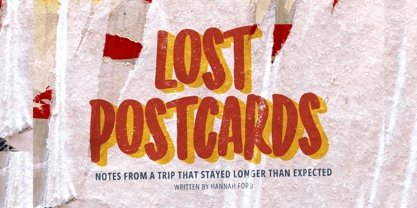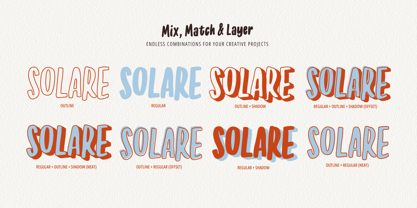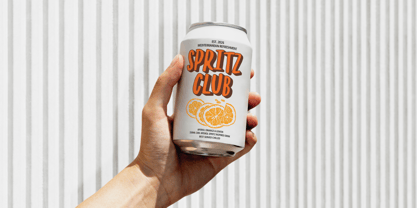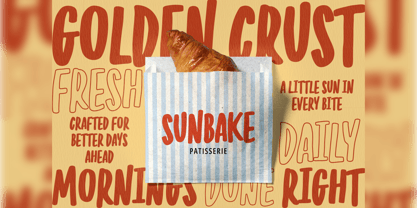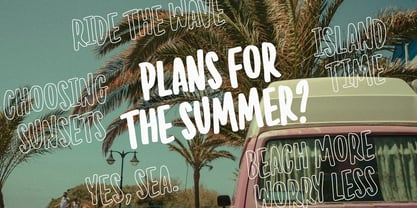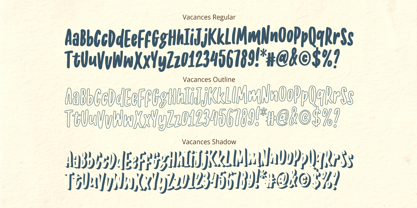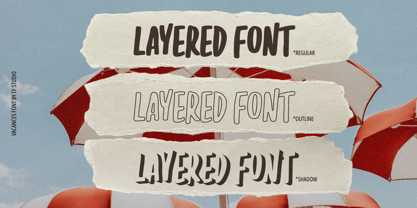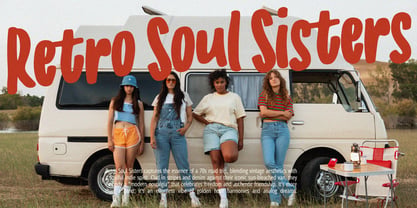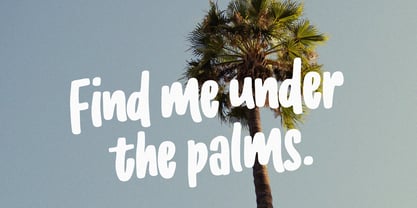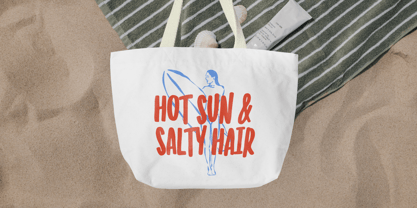
Vacances
The Vacances Font Family was designed by Luthfi Fauzi and published by Ef Studio. Vacances contains 3 styles and family package options. More about this family
Capture the essence of endless summer days and nostalgic road trips with Vacances. Inspired by vintage travel posters and retro seaside signage, this layered condensed font brings a bold, breezy energy to your creative projects. Whether you're designing a vibrant summer festival poster, a trendy beverage label, or eye-catching social media graphics, Vacances offers effortless versatility. The Magic of Mix & Match: The true power of Vacances lies in its intuitive 3-layer system: Regular, Outline, and Shadow. Designed to stack perfectly, you can play with different color palettes for each layer, allowing you to create anything from a subtle 3D effect to a vibrant, multi-colored retro headline in just a few clicks. It’s like having a custom lettering artist at your fingertips. Perfect for High-Impact Layouts: With its tall, condensed silhouette, Vacances is engineered to command attention while saving valuable horizontal space. It’s the perfect bridge between a rustic charm and clean, professional branding.